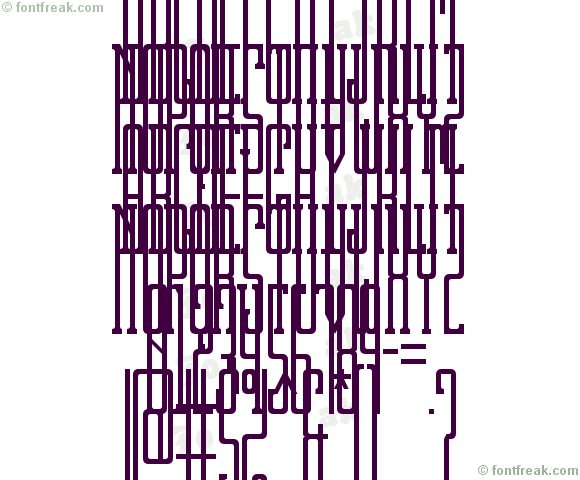
Kibby Slab Regular
Kibby Slab Regular by Luedecke Design Font Co. is a striking serif font that perfectly balances modern aesthetics with timeless elegance. This font features a robust slab serif style, characterized by its thick, block-like serifs that add a sense of weight and stability to the letterforms. The stroke weight is consistent throughout, providing a solid appearance that is both approachable and authoritative. Its moderate contrast and generous spacing enhance readability, making it an excellent choice for various design applications.
This versatile font shines in several specific use cases. For instance, it is an excellent choice for restaurant menus, where its clarity and boldness can effectively convey the menu items while adding a touch of sophistication. Additionally, Kibby Slab Regular is ideal for branding materials, such as logos and signage, where a strong visual identity is crucial. It also works well for editorial layouts, particularly in magazines or brochures that aim to capture readers' attention with striking headlines. Furthermore, its unique style makes it suitable for posters and promotional materials, ensuring that any message stands out.
The target audience for Kibby Slab Regular includes graphic designers, small business owners, and content creators who seek a font that offers both personality and functionality. Whether you’re designing for print or digital media, this font provides the flexibility needed to adapt to various projects.
What truly sets Kibby Slab Regular apart is its combination of bold, geometric shapes and its friendly demeanor, making it approachable yet assertive. The free download option allows designers to experiment with this unique typeface in their projects without hesitation, making it a valuable addition to any font library.